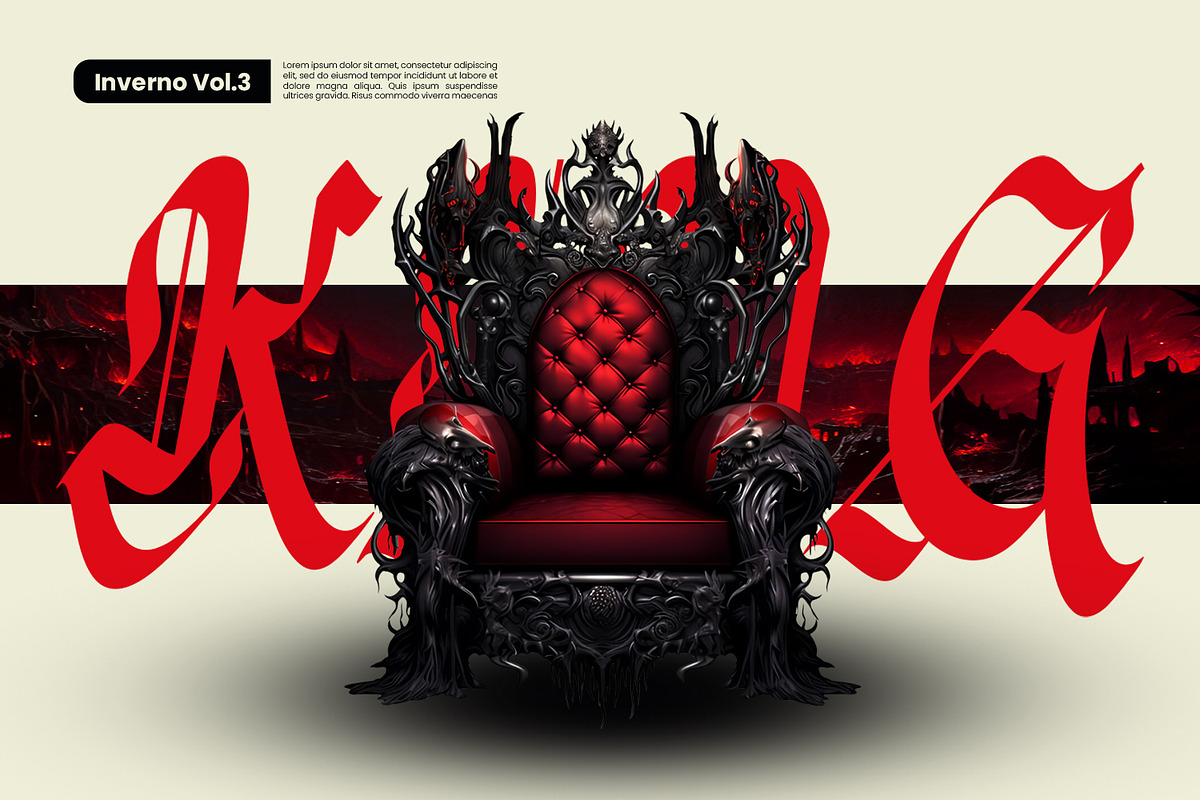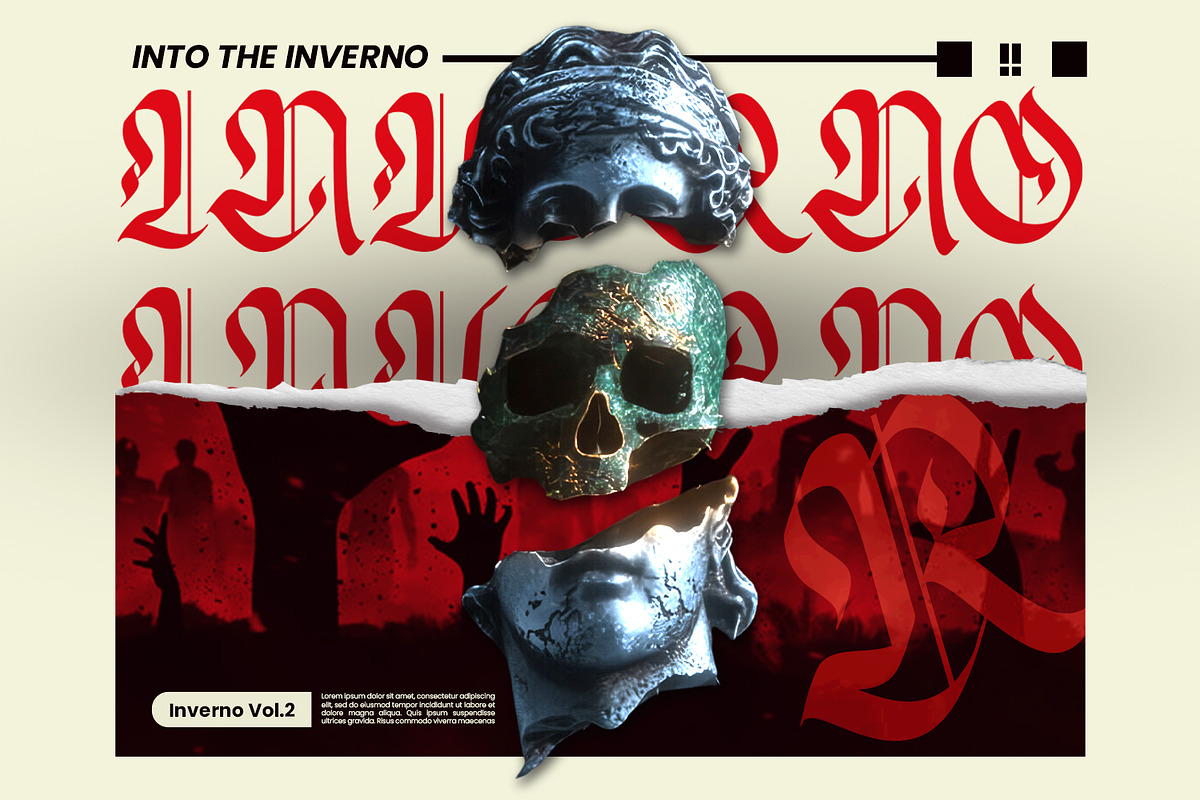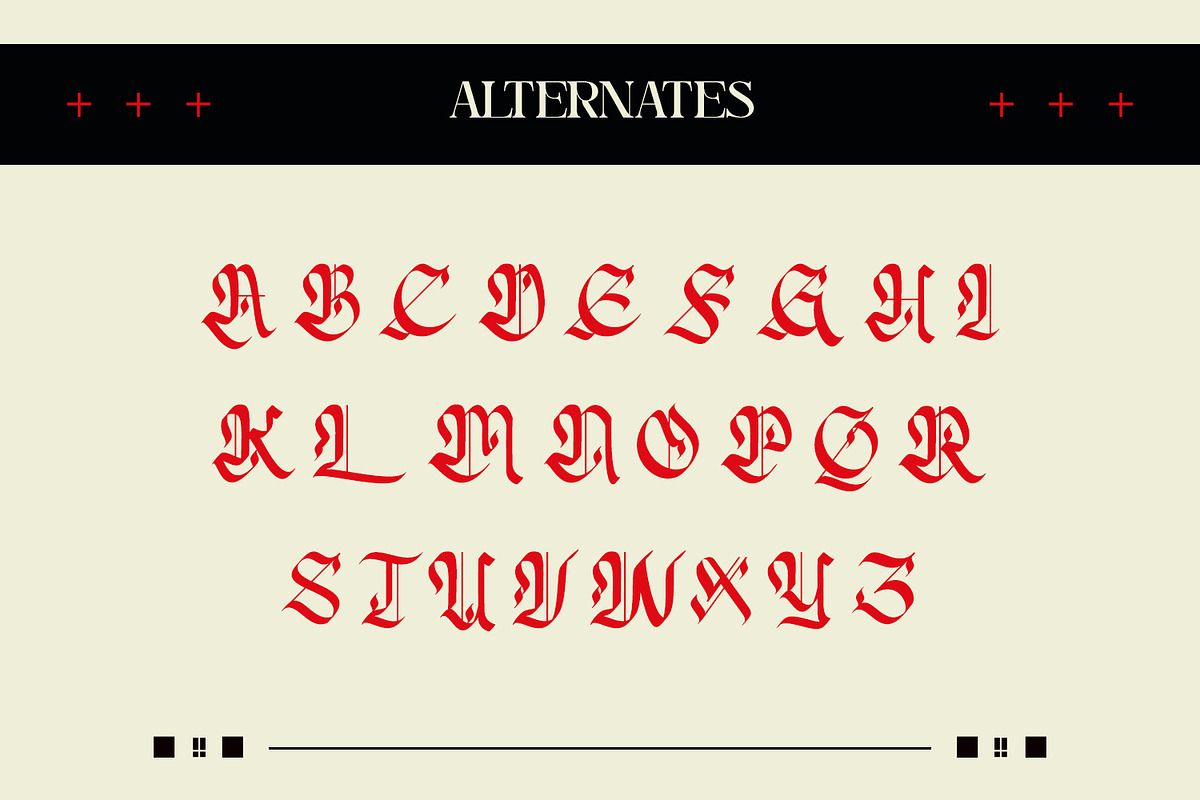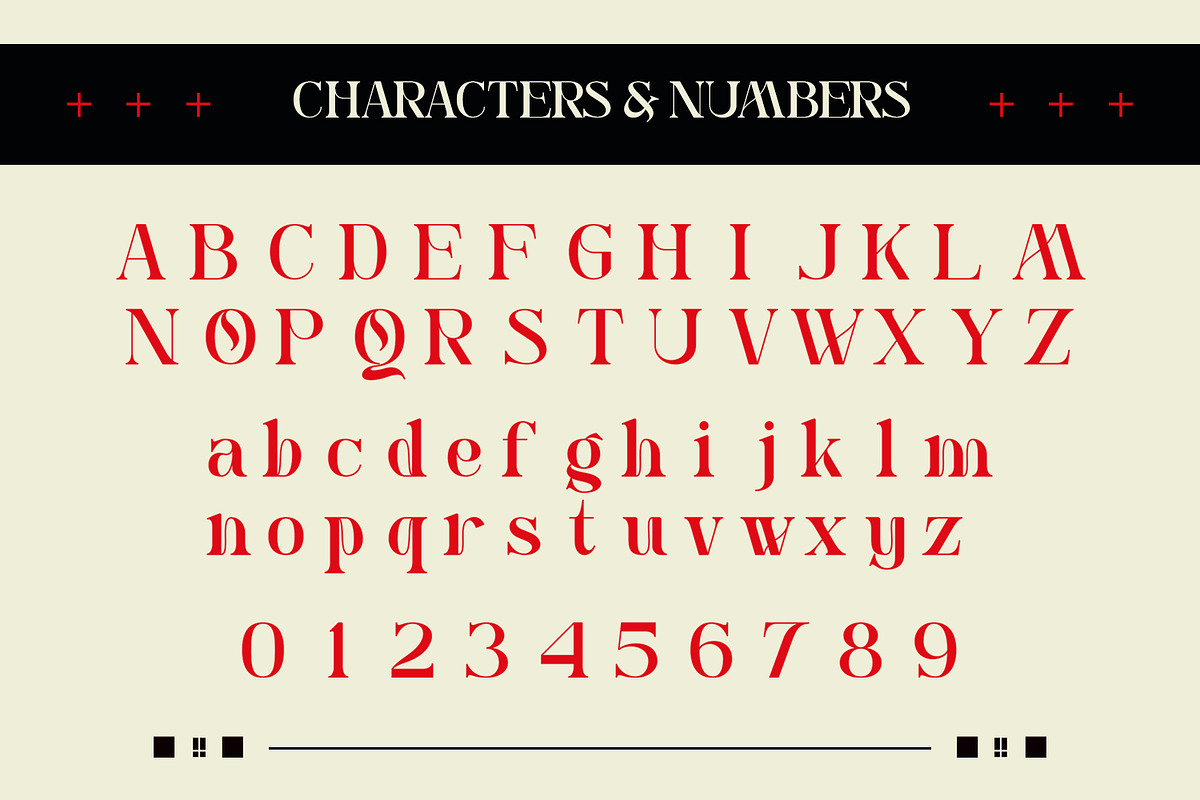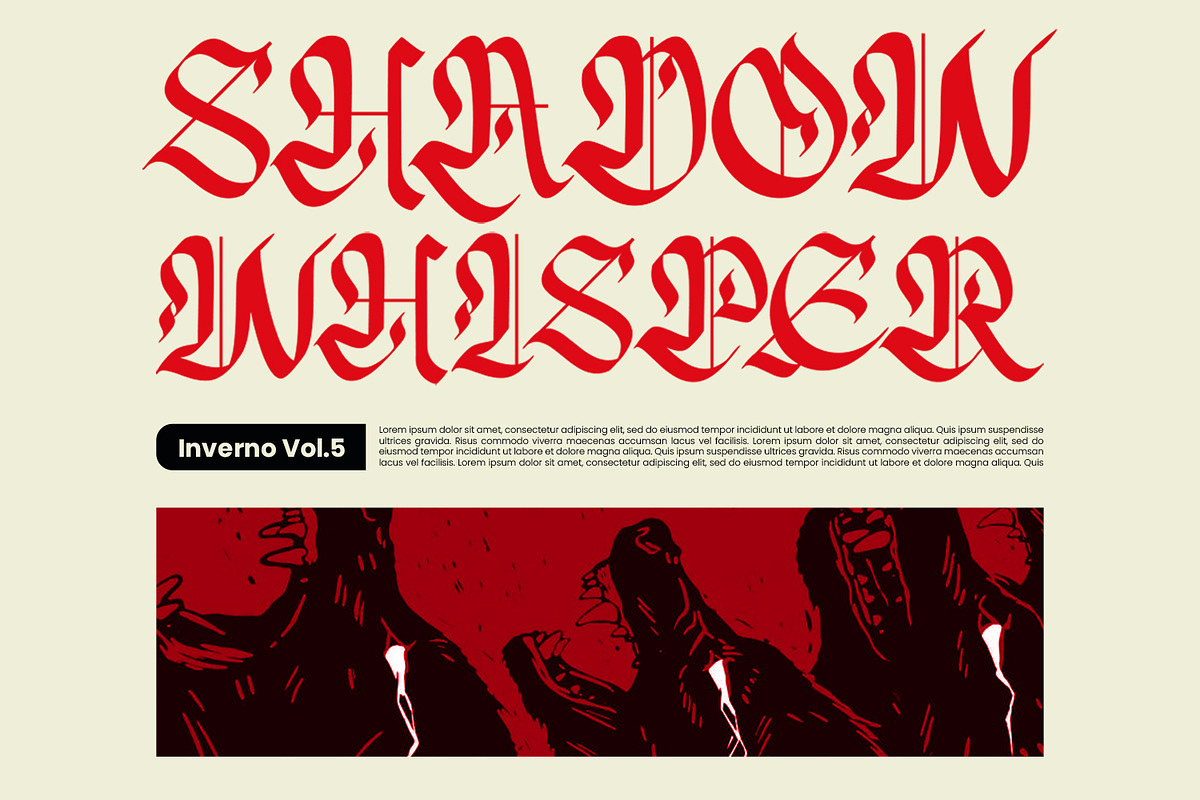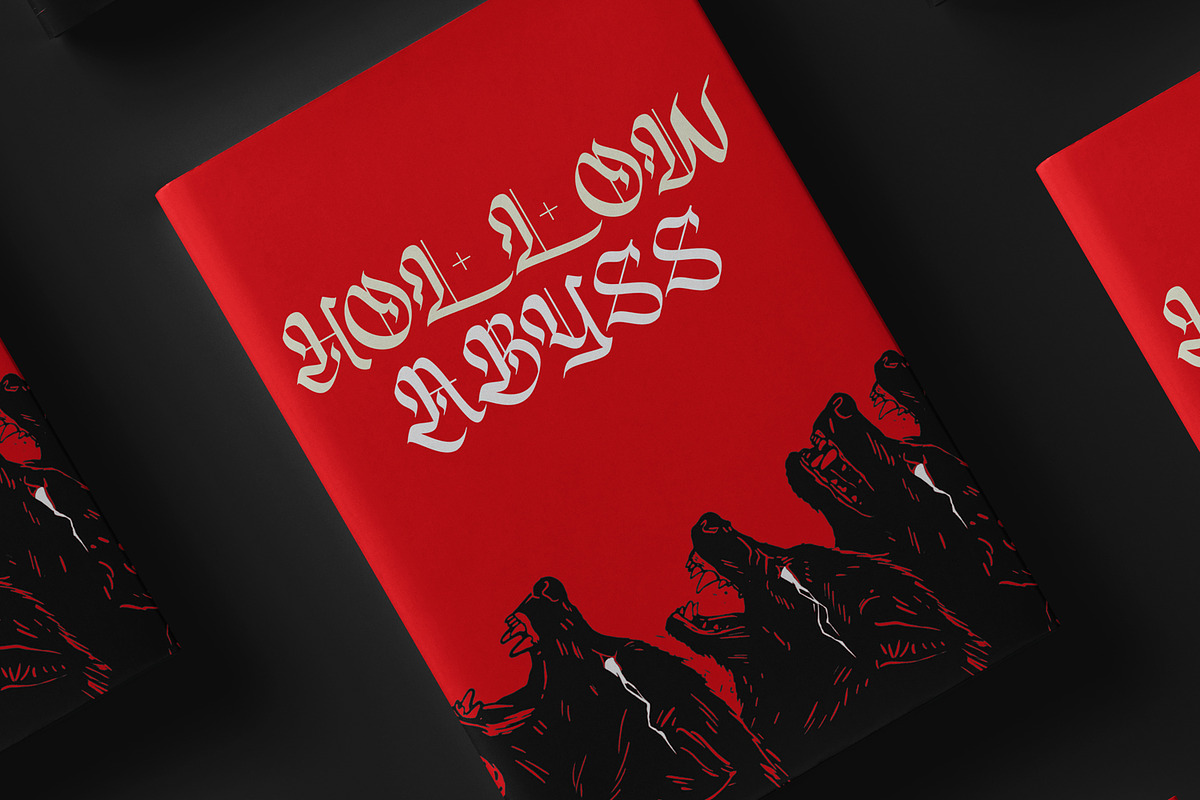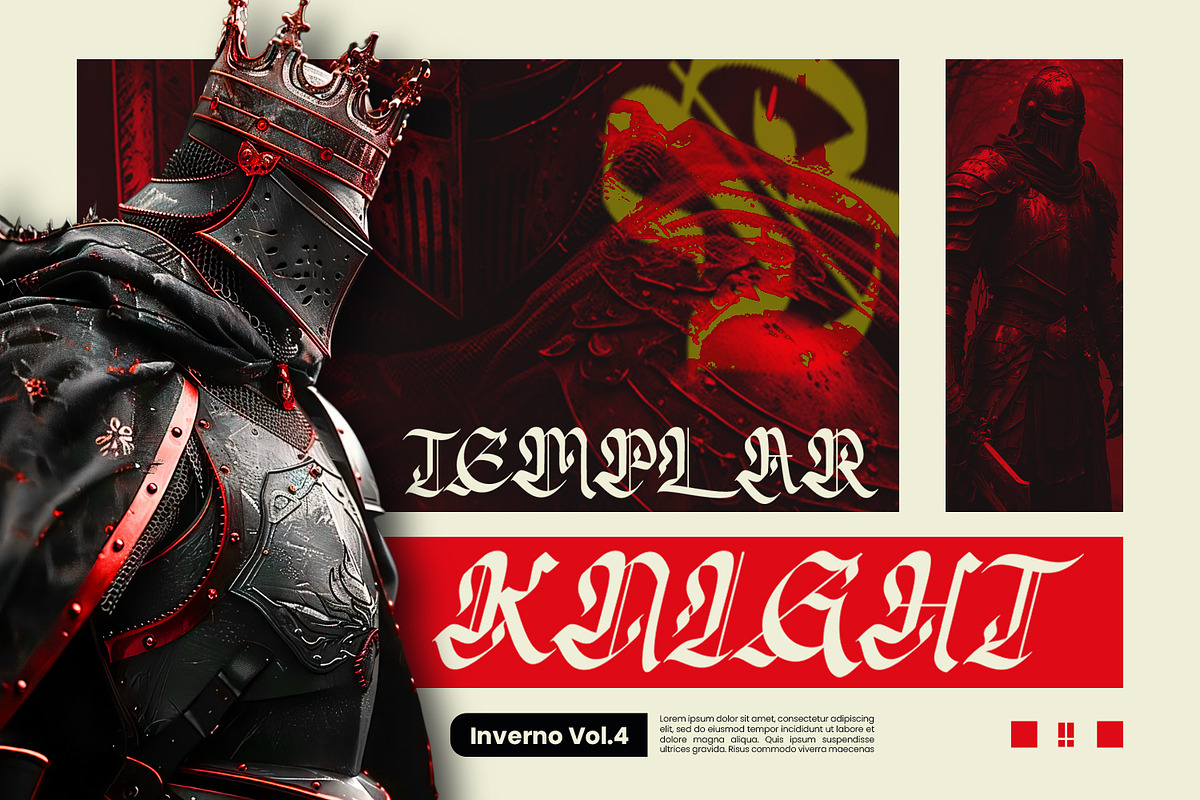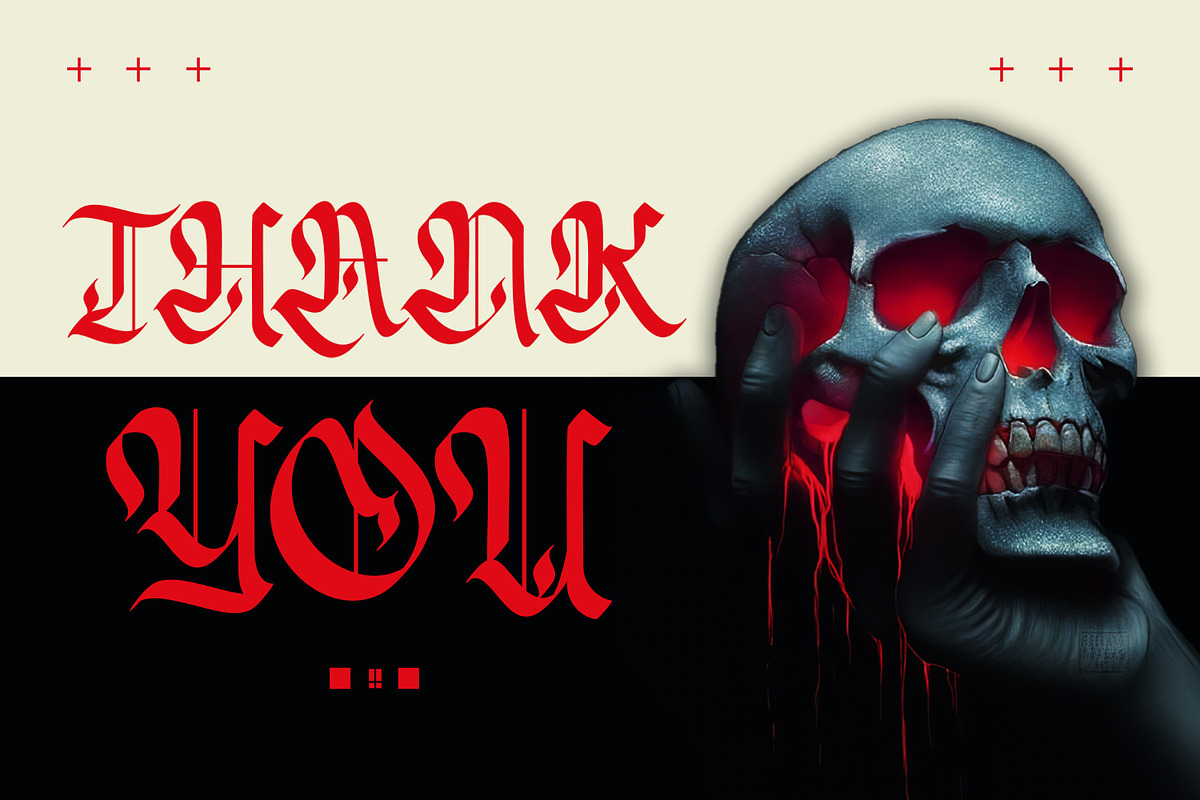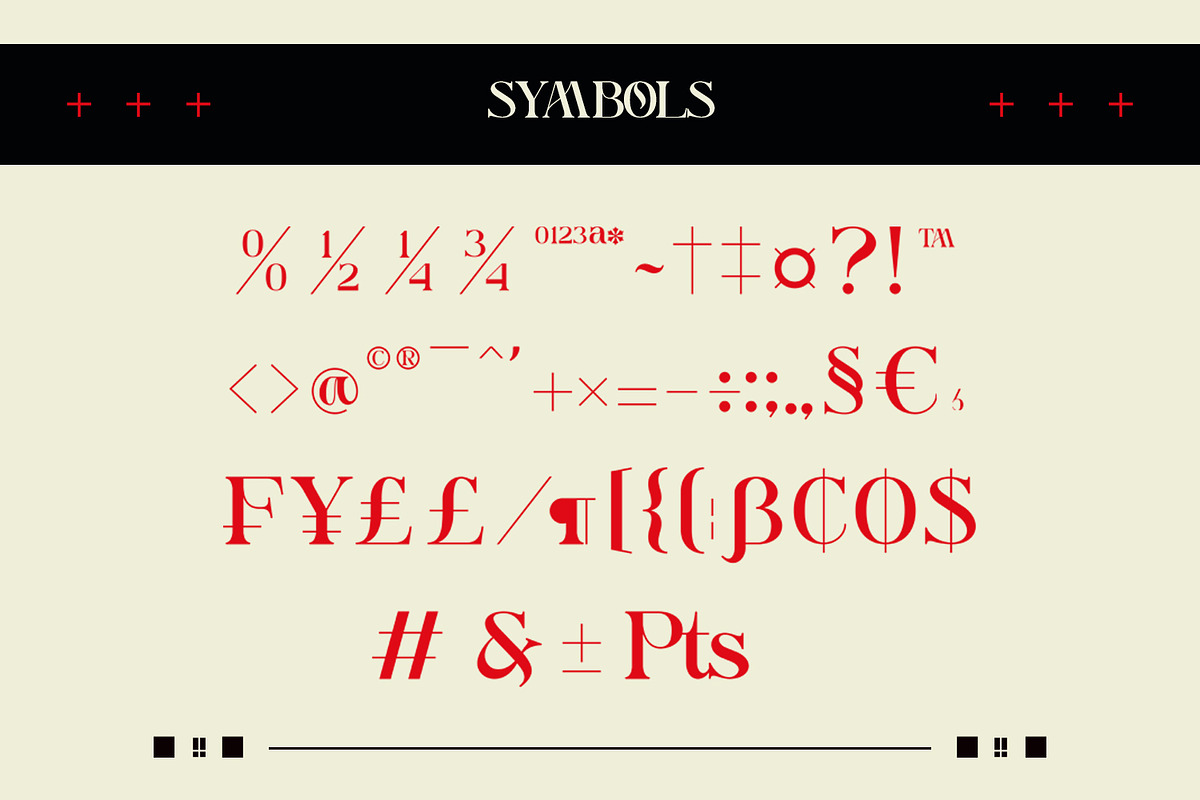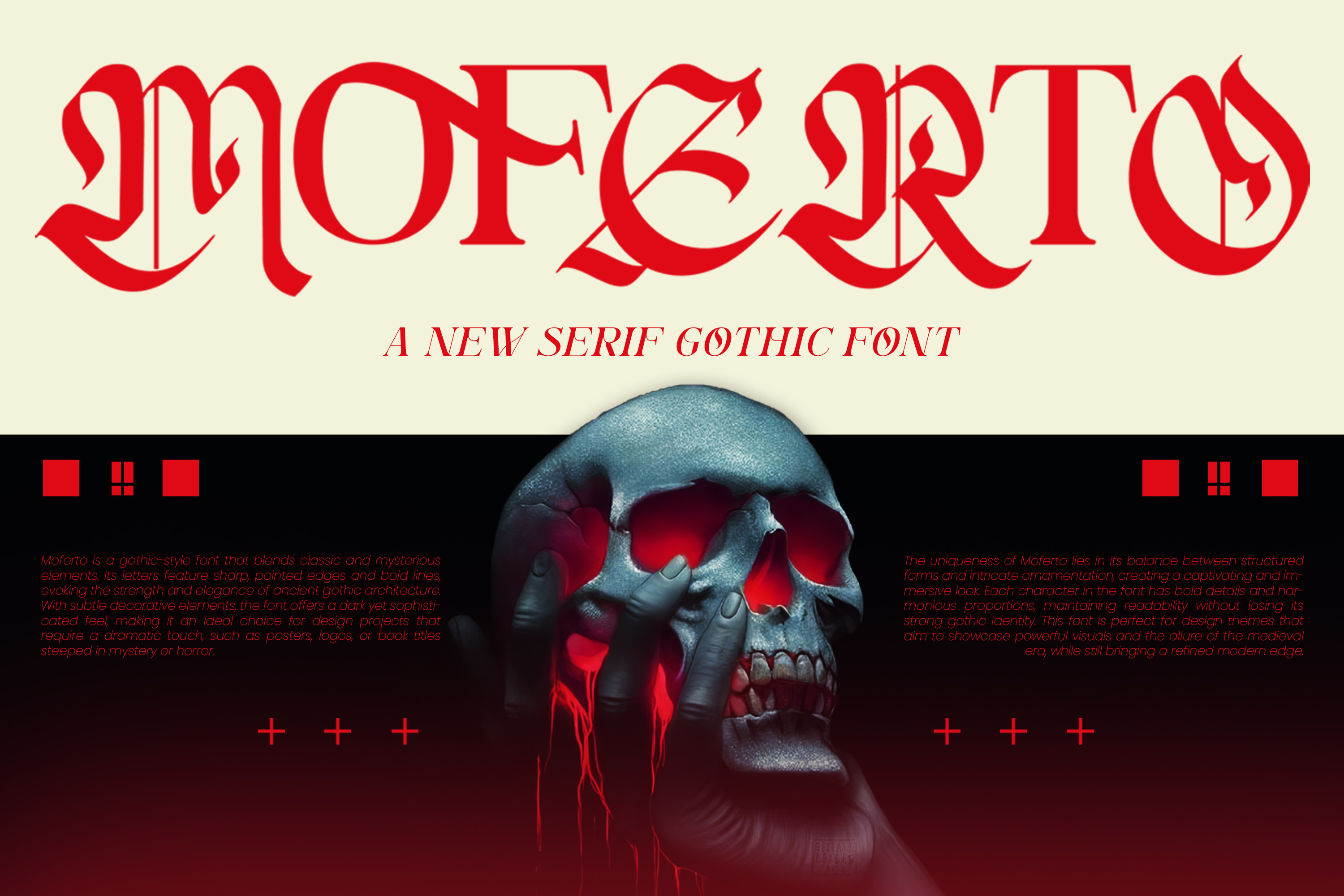
Moferto - Ghotic Serif Font
Moferto - Ghotic Serif Font, from Favowrite Studios, is a premium Font, perfect for any project that requires a distinctive, and premium feel.
- Ligature, Alternate & amp; Multilingu